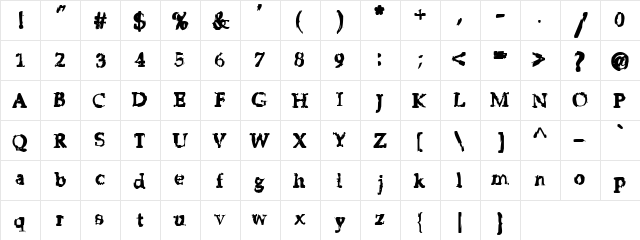
Strip Club Motion Sickness grunge deluxe
Design Context for Strip Club Motion Sickness Typeface
Strip Club Motion Sickness trades polish for personality, using distressed and eroded forms to bring grit and attitude to creative work.
Suited to punk-influenced zines, underground music branding, streetwear, and raw, anti-corporate design.
Pro Tip: Pair Strip Club Motion Sickness with intentionally raw or lo-fi design elements. Fighting against it with overly polished surroundings will undermine its personality.